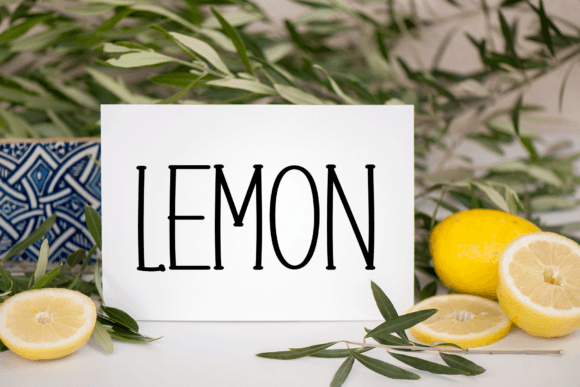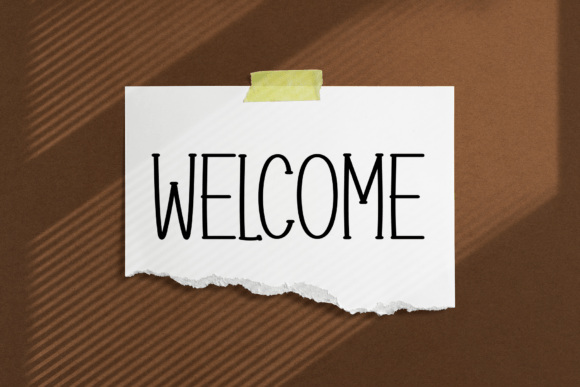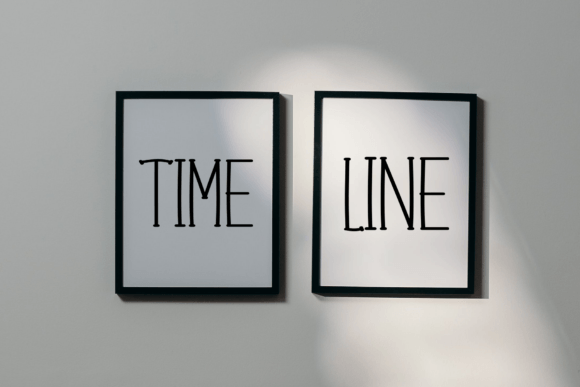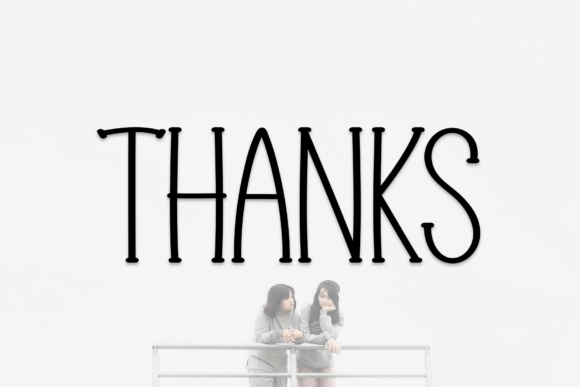
Introducing Circle Positive Font: The Perfect Blend of Relaxed and Luxurious
In the world of typography, fonts play a crucial role in conveying the tone and personality of a brand or design. For designers and crafters looking for a unique and versatile font, Circle Positive is an excellent choice. This handwritten font, which looks like it was drawn with a marker, offers a relaxed and sporty feel that’s perfect for a wide range of applications.
What is Circle Positive Font?
Circle Positive is a carefully crafted handwritten font that mimics the look of marker-drawn letters. Its casual, effortless vibe makes it an ideal choice for designs that require a touch of personality and whimsy. The font’s relaxed and sporty feel is perfect for creating a friendly and approachable tone, while its elegant undertones add a touch of sophistication.
Key Features of Circle Positive Font
- Handwritten with a marker feel: Circle Positive has a unique, hand-crafted look that’s reminiscent of marker-drawn letters.
- Relaxed and sporty feel: The font’s casual vibe makes it perfect for designs that require a friendly and approachable tone.
- Luxurious and elegant undertones: Despite its casual feel, Circle Positive has an undeniable touch of sophistication and elegance.
- Versatile: This font is suitable for a wide range of applications, from branding and logos to wedding supplies and marketing promotions.
Use Cases for Circle Positive Font
Circle Positive is an incredibly versatile font that can be used in various design projects. Here are some of the most popular use cases:
- Branding and logos: Create a unique and memorable brand identity with Circle Positive.
- Wedding supplies: Add a touch of elegance and whimsy to your wedding designs, such as invitations, programs, and decorations.
- Greeting cards: Create personalized and heartfelt greeting cards for special occasions.
- Fashion and lookbooks: Use Circle Positive to add a touch of sophistication and style to your fashion designs and lookbooks.
- Marketing promotions: Create eye-catching marketing materials, such as flyers, brochures, and social media graphics, with Circle Positive.
Why Choose Circle Positive Font?
With so many fonts available, why choose Circle Positive? Here are a few compelling reasons:
- Unique and distinctive: Circle Positive has a one-of-a-kind look that will set your designs apart from the crowd.
- Highly versatile: This font can be used in a wide range of design projects, from casual to formal.
- Elegant and sophisticated: Despite its casual feel, Circle Positive has an undeniable touch of luxury and elegance.
- Easy to read: The font’s clear and legible design makes it easy to read, even at smaller sizes.
Tips for Using Circle Positive Font
To get the most out of Circle Positive, here are a few tips:
- Use it as a headline font: Circle Positive is perfect for headlines and titles, where its unique and elegant look can shine.
- Pair it with contrasting fonts: Combine Circle Positive with contrasting fonts to create visual interest and hierarchy.
- Experiment with colors and textures: Add depth and interest to your designs by experimenting with different colors and textures.
Circle Positive is a unique and versatile font that’s perfect for designers and crafters looking for a relaxed and sporty feel with luxurious and elegant undertones. With its highly legible design and wide range of use cases, this font is an excellent choice for branding, logos, wedding supplies, greeting cards, fashion, lookbooks, marketing promotions, and more. Whether you’re looking to create a casual and friendly tone or add a touch of sophistication to your designs, Circle Positive is an excellent choice.